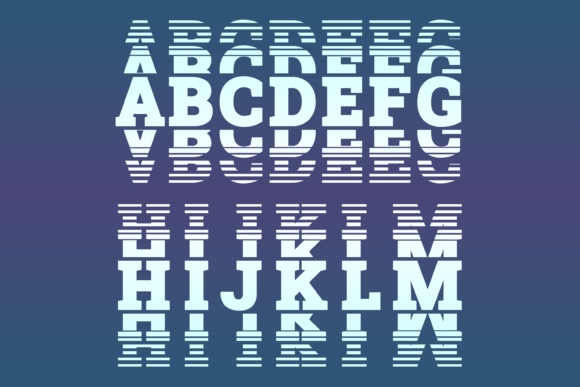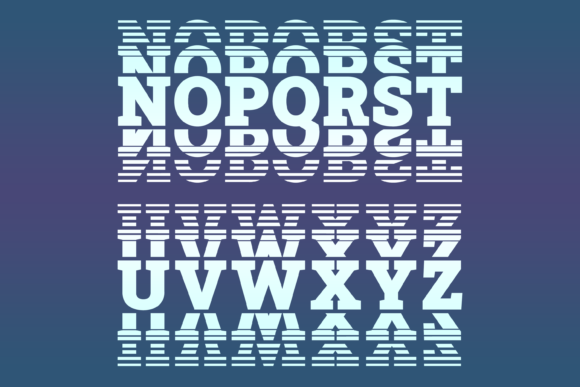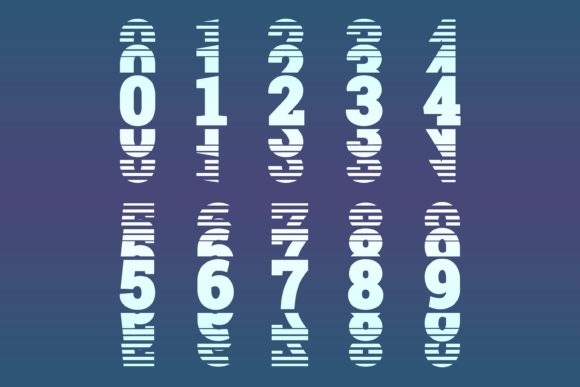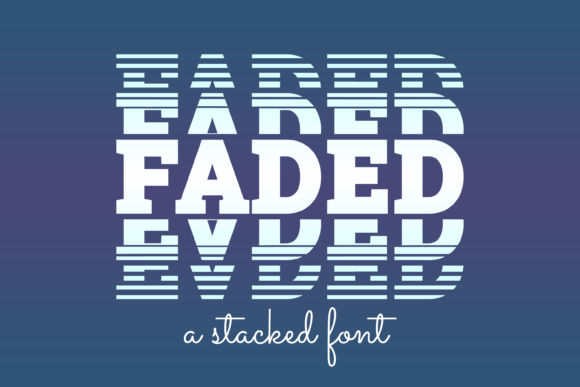
Faded Font: Elevate Your Designs with a Lovely Touch
Faded is an incredibly cool display font that has been gaining popularity among designers and crafters alike. Whether you use it for custom designs, DIY crafts, or just any creation that requires a lovely touch, this font will be an amazing choice! In this article, we’ll dive into the world of Faded Font, exploring its features, benefits, and uses, as well as provide tips on how to make the most of this beautiful font.
What is Faded Font?
Faded Font is a display font designed to add a touch of elegance and sophistication to your designs. Its unique, distressed look gives it a one-of-a-kind appearance that’s perfect for creating eye-catching titles, headings, and quotes. The font’s subtle fade effect adds a sense of depth and dimensionality, making it stand out from more traditional fonts.
Features of Faded Font
- Unique Distressed Look: Faded Font’s distressed look gives it a worn, vintage feel that’s perfect for creating unique and eye-catching designs.
- Subtle Fade Effect: The font’s subtle fade effect adds a sense of depth and dimensionality, making it perfect for creating layered designs.
- Highly Versatile: Faded Font is highly versatile and can be used for a wide range of design projects, from custom designs to DIY crafts.
- Easily Customizable: The font is easily customizable, allowing you to adjust the size, color, and style to suit your design needs.
Benefits of Using Faded Font
So, why should you choose Faded Font for your next design project? Here are just a few benefits of using this amazing font:
- Adds a Touch of Elegance: Faded Font adds a touch of elegance and sophistication to your designs, making it perfect for creating high-end designs.
- Perfect for Display Text: The font’s unique distressed look and subtle fade effect make it perfect for display text, such as titles, headings, and quotes.
- Great for DIY Crafts: Faded Font is also great for DIY crafts, such as scrapbooking, card making, and other paper crafts.
- Easy to Read: Despite its distressed look, Faded Font is easy to read, making it perfect for creating designs that need to be both visually appealing and legible.
Uses of Faded Font
Faded Font is a highly versatile font that can be used for a wide range of design projects, including:
- Custom Designs: Use Faded Font to create custom designs for clients, such as logos, brochures, and business cards.
- DIY Crafts: Faded Font is perfect for DIY crafts, such as scrapbooking, card making, and other paper crafts.
- Social Media Graphics: Use Faded Font to create eye-catching social media graphics, such as Facebook posts, Instagram stories, and Twitter headers.
- Signage: Faded Font is also great for signage, such as store signs, event signs, and directional signs.
Tips for Using Faded Font
Here are a few tips for using Faded Font to get the most out of this amazing font:
- Use it for Display Text: Faded Font is perfect for display text, such as titles, headings, and quotes.
- Experiment with Colors: Try experimenting with different colors to find the perfect combination for your design.
- Adjust the Size: Adjust the size of the font to suit your design needs, from large and bold to small and subtle.
- Combine with Other Fonts: Faded Font pairs well with other fonts, so don’t be afraid to combine it with other fonts to create a unique look.
In conclusion, Faded Font is an incredibly cool display font that’s perfect for adding a lovely touch to your designs. Its unique distressed look and subtle fade effect make it stand out from more traditional fonts, while its versatility and ease of use make it a great choice for designers and crafters alike. Whether you’re creating custom designs, DIY crafts, or just any creation that requires a lovely touch, Faded Font is an amazing choice!